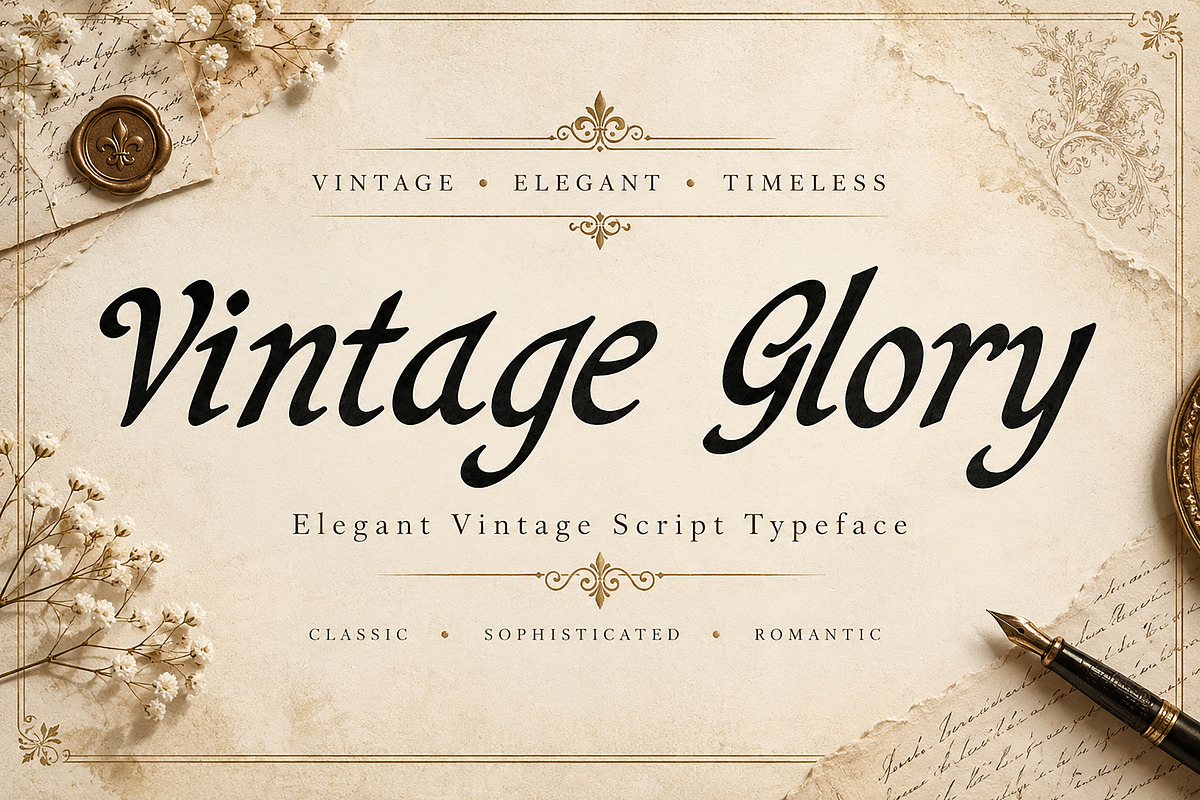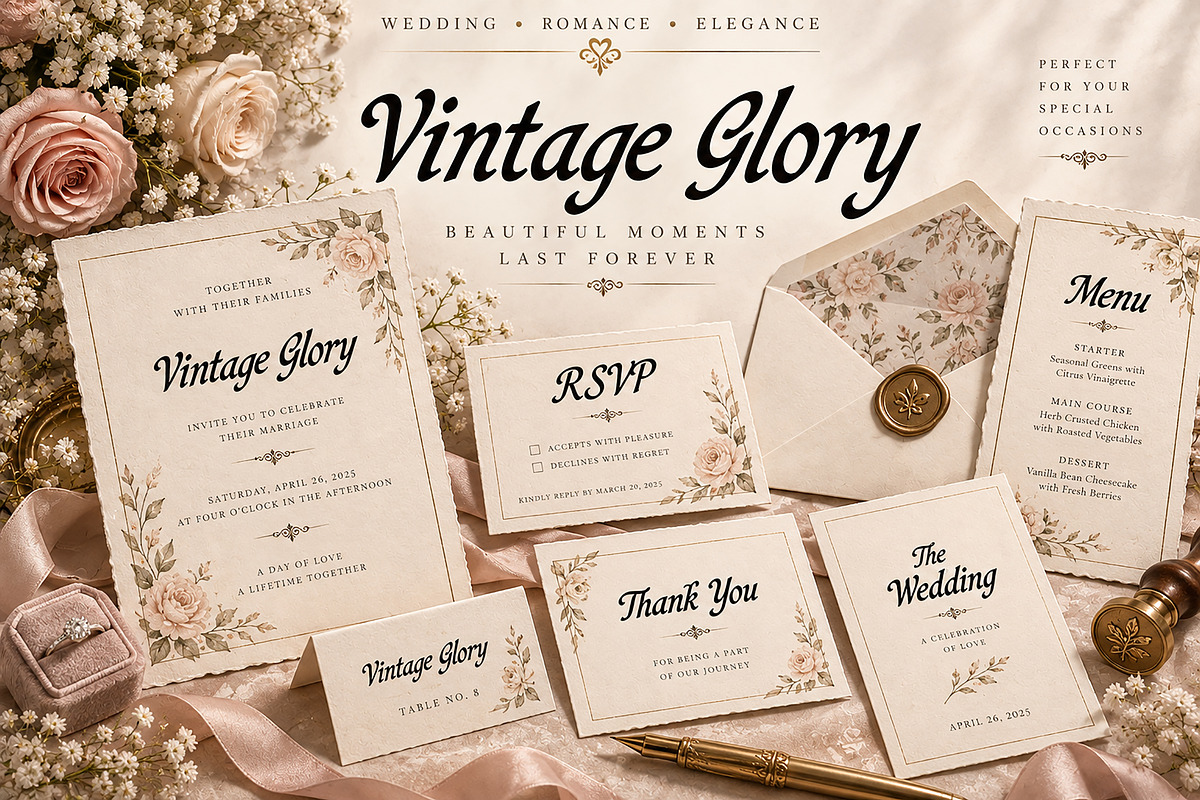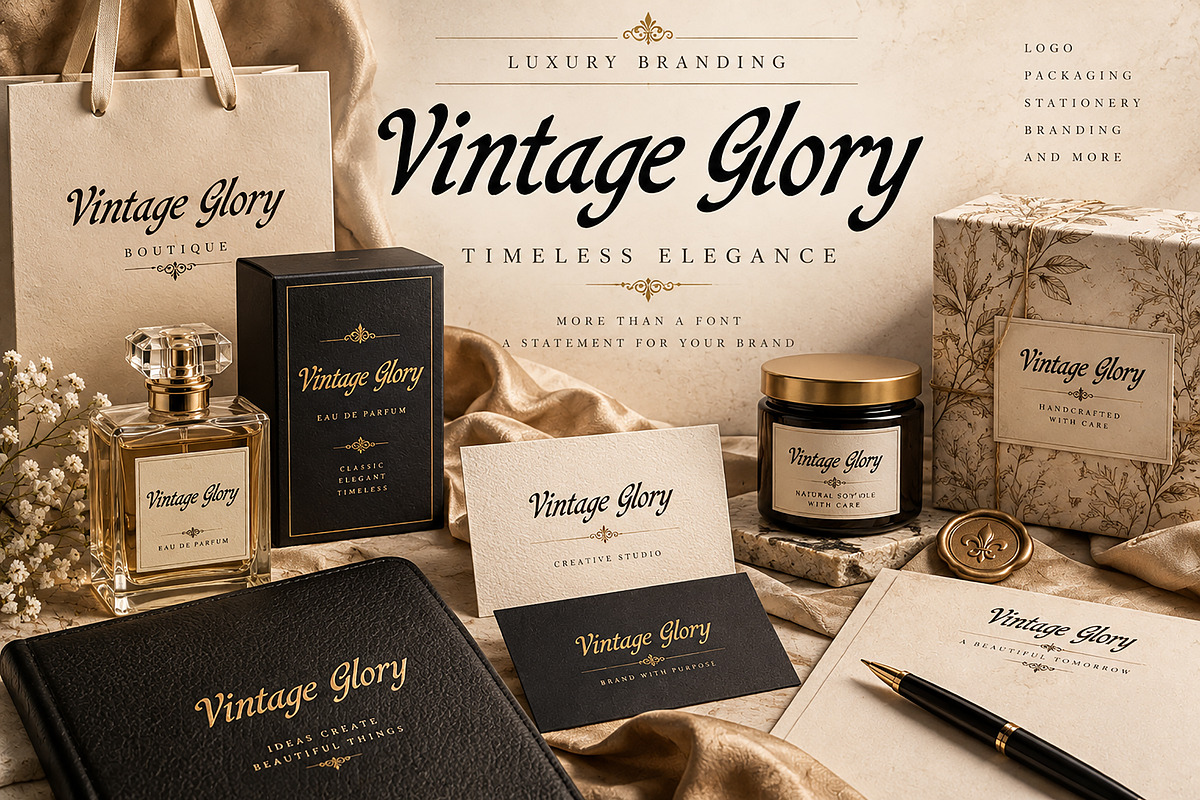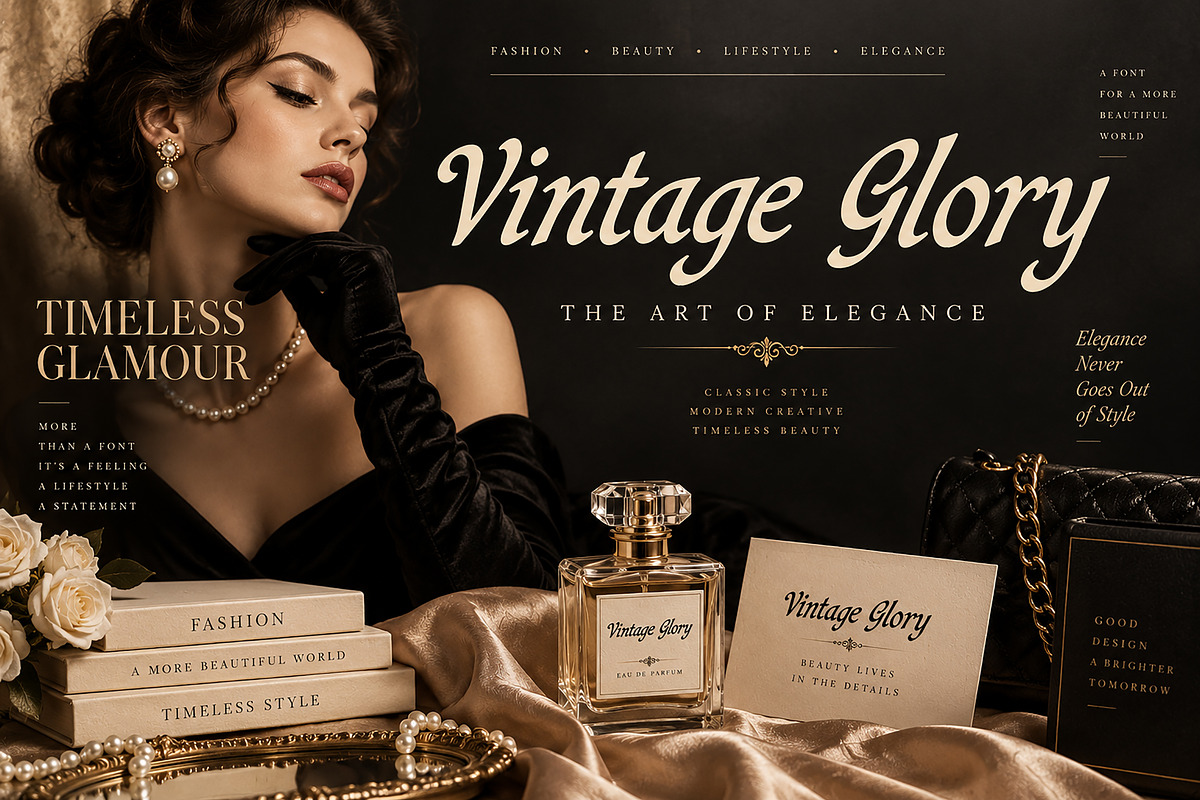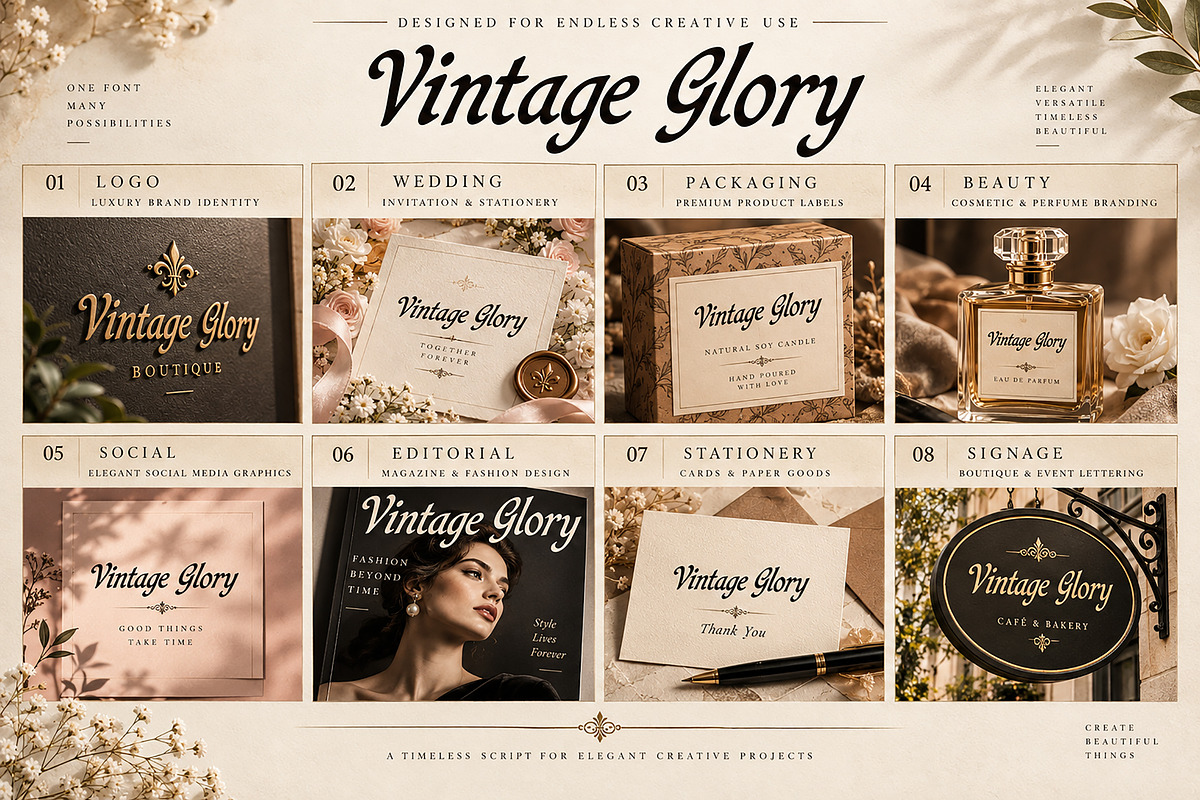
Vintage Glory
VINTAGE GLORY — Elegant Vintage Script Font
Vintage Glory is an elegant vintage script typeface featuring dramatic strokes, graceful curves, and sophisticated calligraphic details. Perfect for creating timeless logos, wedding stationery, luxury branding, packaging, invitations, editorial designs, and other elegant creative projects.
Vintage Glory is a sophisticated vintage script font designed to bring timeless elegance, classic charm, and a luxurious handwritten feel to your creative projects.
With its expressive thick-and-thin strokes, graceful curves, flowing connections, and distinctive calligraphic character, Vintage Glory adds a refined and memorable personality to any design.
This typeface is especially suitable for projects that need a luxury, romantic, vintage, sophisticated, or editorial aesthetic.
Luxury Logo & Branding
Wedding Invitations
Wedding Stationery
Bridal Designs
Beauty & Fashion Branding
Perfume & Cosmetic Packaging
Product Labels
Boutique Branding
Editorial & Magazine Designs
Greeting Cards
Posters & Promotional Designs
Boutique Signage
Stationery & Paper Goods
Romantic & Elegant Projects
Vintage • Elegant • Luxury • Romantic • Classic • Sophisticated • Calligraphic
Bring a timeless and sophisticated touch to your designs with Vintage Glory—a decorative script typeface made for elegant branding, romantic stationery, luxury packaging, and creative projects that deserve a distinctive vintage character.